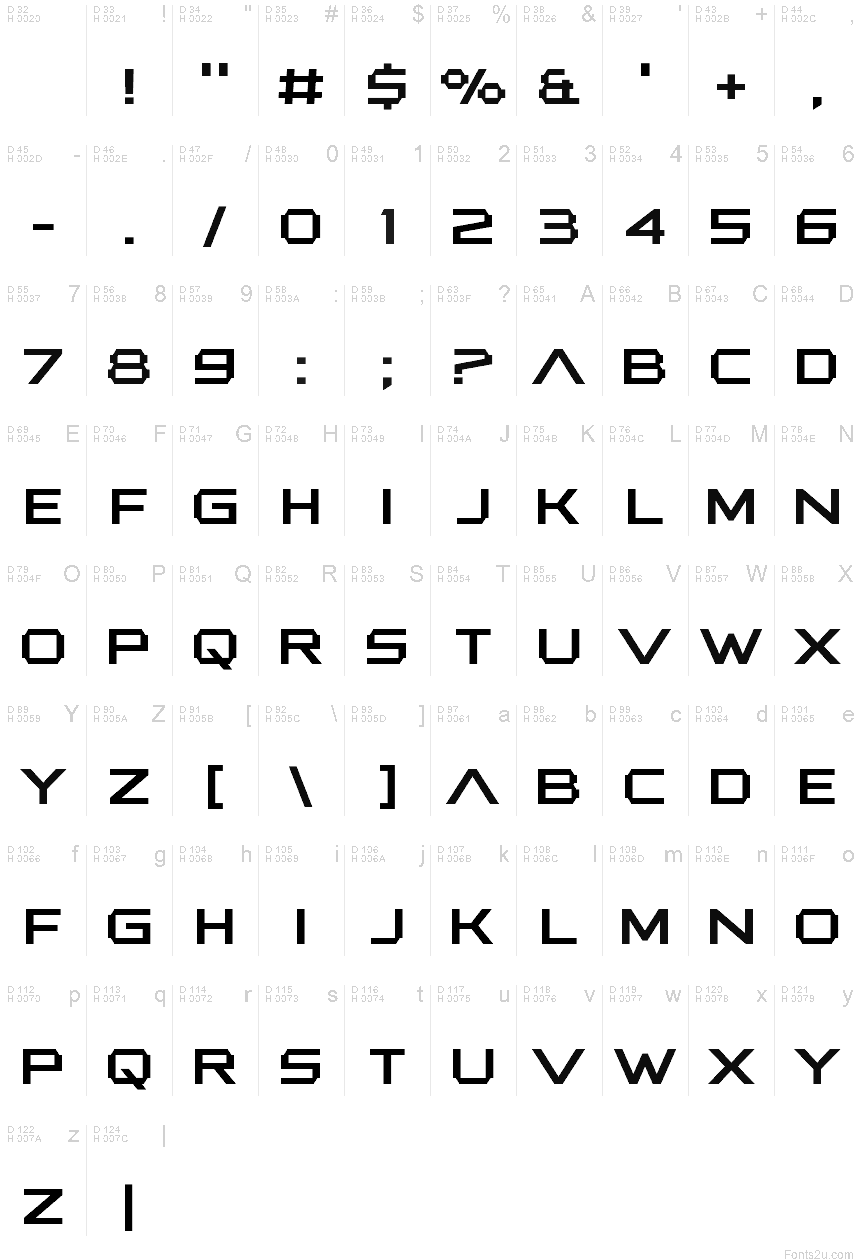
Another Xanadu
This font was a recreation from the roman letter of Tokyo Xanadu, a Role Play Game.
UPDATE : Some glyph was fixed and adding more glyphs